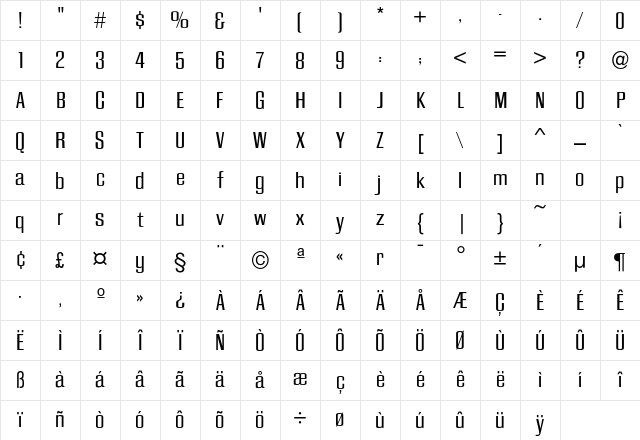
CaliforniaGrotesk takes a clean, functional approach - its unadorned letterforms prioritise legibility and work reliably across screen and print environments.
Font Pairing: Works well alongside a characterful serif or display font that can carry the expressive load while CaliforniaGrotesk handles the functional copy.
Pro Tip: Use CaliforniaGrotesk for UI labels, navigation, and short-form body copy where clean legibility is the priority.